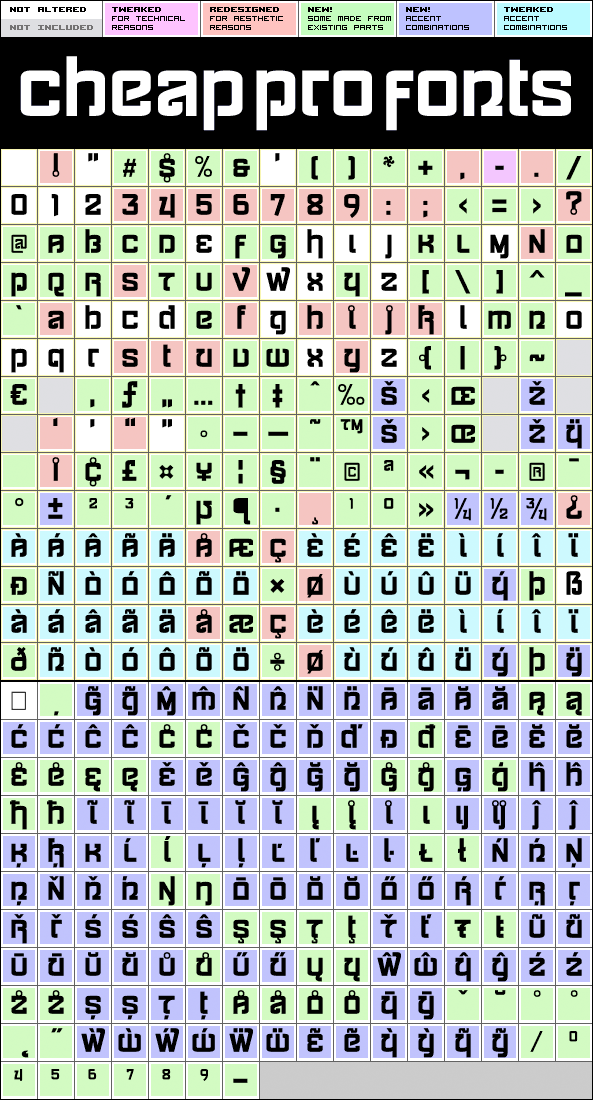
Siamese Katsong Pro
Siamese Katsong Pro by Vic Fieger
384 glyphs!
(131 in original)
50 class kernpairs
= 577 kerning pairs
(none in original)
A faux Thai font - but not over the top, just stylishly hinting at the foreign script. I have introduced lots of alternate glyphs, so it now has both lower- and uppercase letterfoms. Perfect for that travel brochure, ad or restaurant menu - in many languages.
Vic Fieger simply says: "A font based on a boldface sign in Thai".
Siamese Katsong Pro is a professionally reworked font that contains an extended character set for setting text in 65 languages requiring more than the basic A-Z!